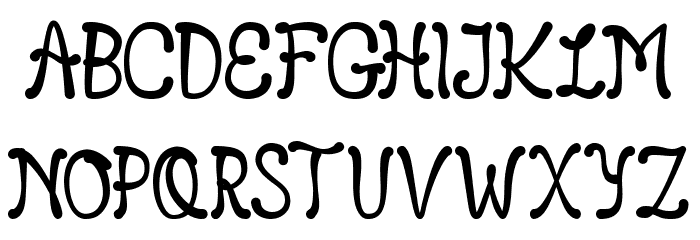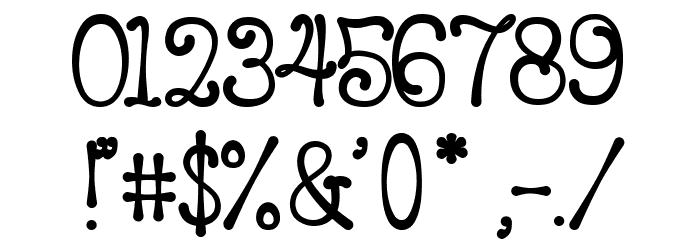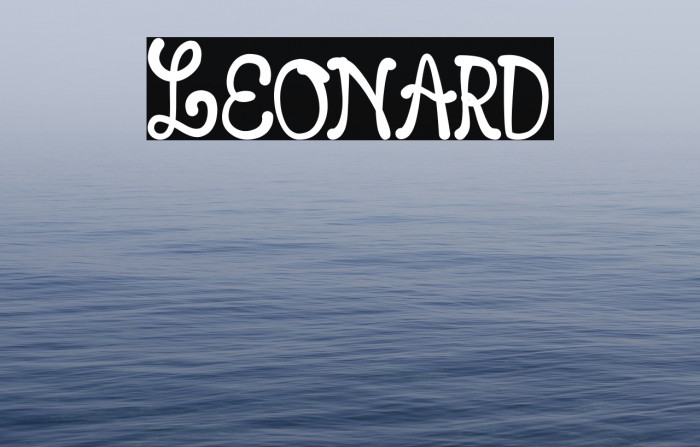
Leonard Font
This playful and whimsical font features a unique blend of bold, rounded characters with a decorative flair. Each letter is adorned with subtle curls and loops, giving it a lively and dynamic appearance. The uppercase and lowercase letters maintain a consistent style, ensuring readability while adding a touch of fun. Numbers and special characters are equally expressive, making this font versatile for various creative projects. Its bold strokes and consistent weight make it stand out, while the moderate spacing between characters ensures clarity. The font's distinctive style is perfect for adding a playful touch to any design.
A playful, decorative font with bold, rounded characters and whimsical curls.
- Proposed Projects: Ideal for children's books, playful branding, party invitations, and creative posters.